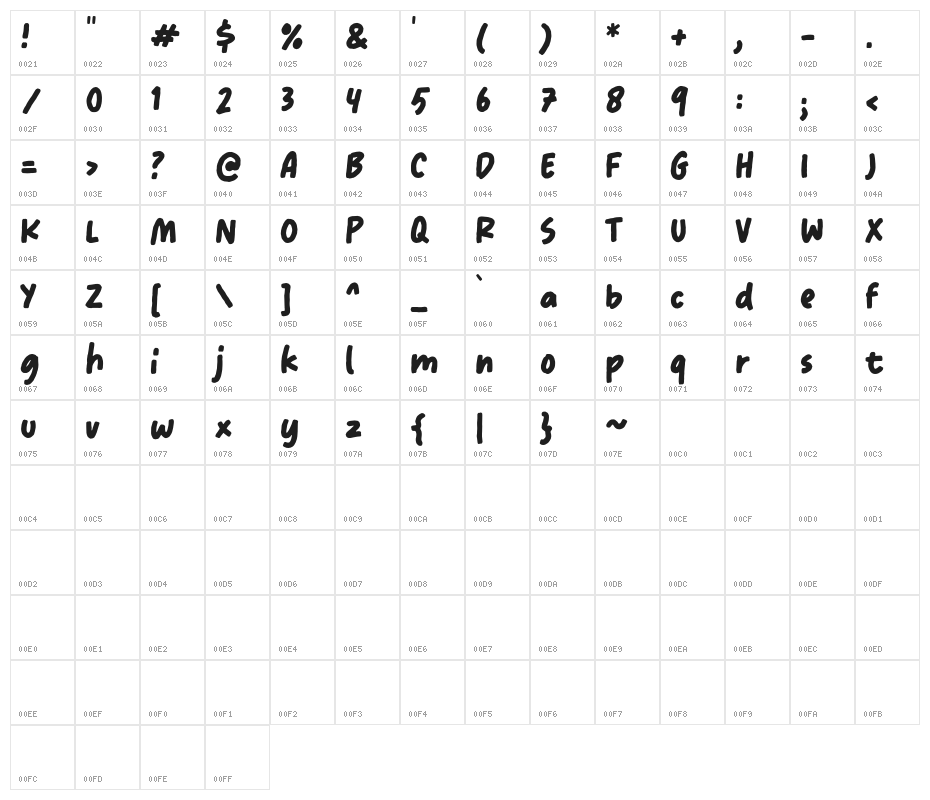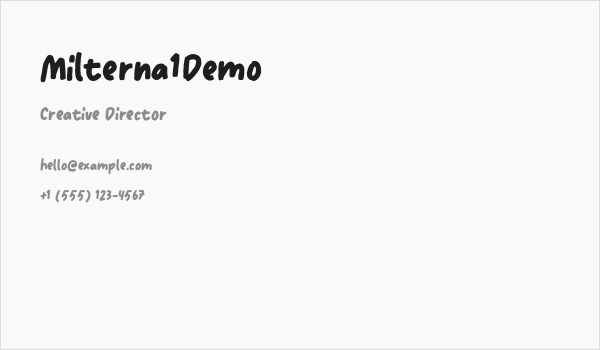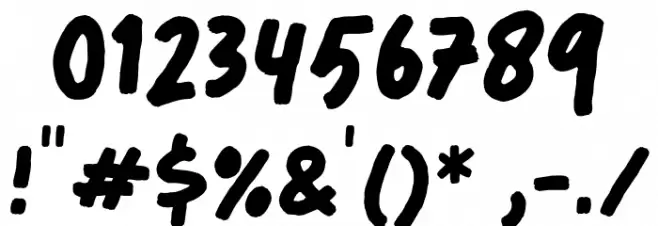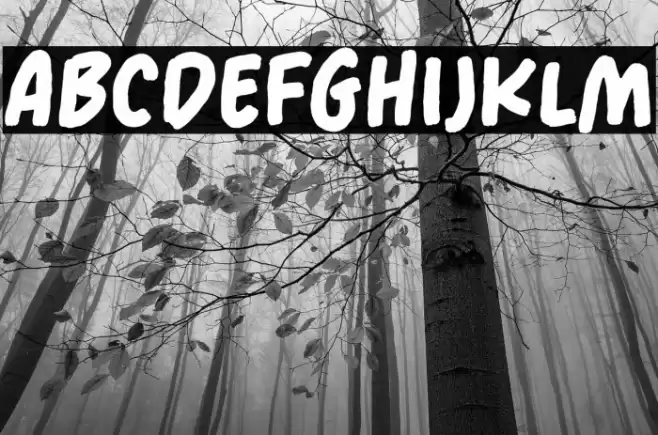
Milterna1Demo Font
Milterna1Demo Description
This font exhibits a bold and playful handwritten style, characterized by its thick strokes and slightly irregular shapes. The letters have a casual, organic feel, with rounded edges and a consistent weight throughout. The uppercase and lowercase letters maintain a cohesive appearance, while the numerals and special characters blend seamlessly with the overall design. This font's informal and approachable nature makes it suitable for creative and expressive projects.
| Overall Style | Playful, Casual |
| Proposed Projects | Ideal for greeting cards, children's books, playful branding, and social media graphics. |